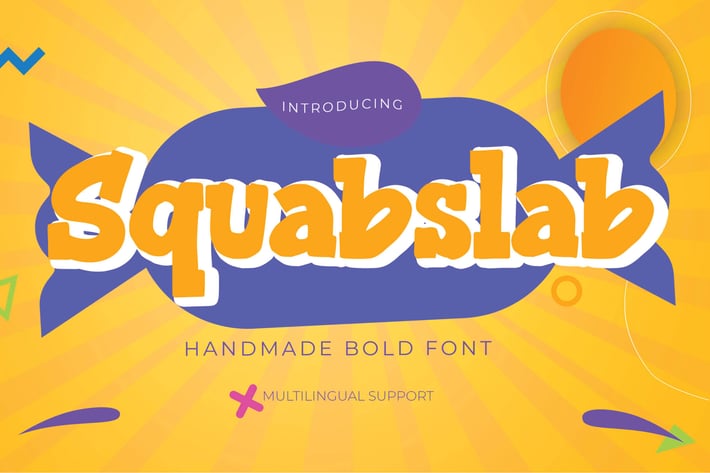
Squabslab - Handmade Bold Font
Hello Everyone, introduce our new product Squabslab - Handmade Bold Font Serif, inspired by the title of the sports poster and We make it very energetically. Squabslabfont with strong and challenging nuances. very suitable for the title, typography, Poster, magazines, brochures, packaging,Websites and much more for your design needs, making your designs more modern and professional.
This handmade font Squabslab will make your design has a beautiful natural touch for each details. It is perfect for any design project as Invitation,logo, book cover, craft or any design purposes.